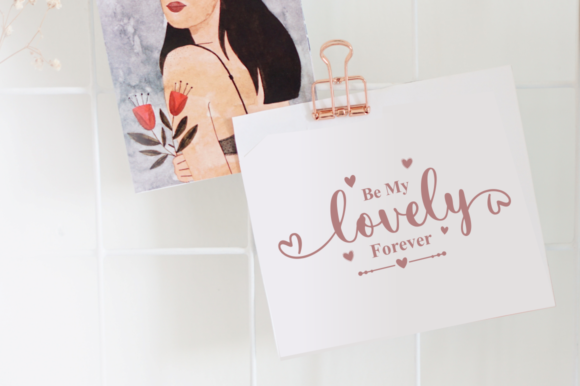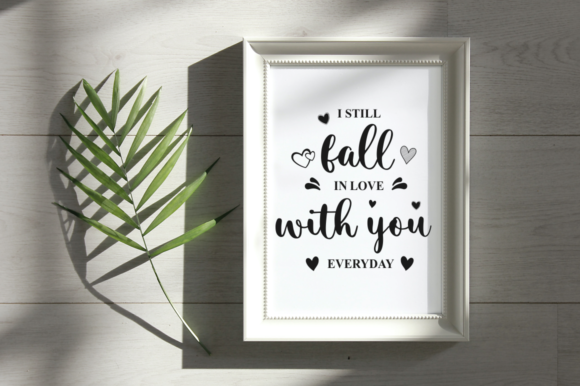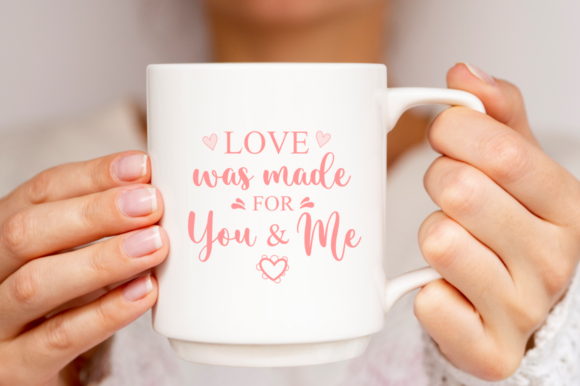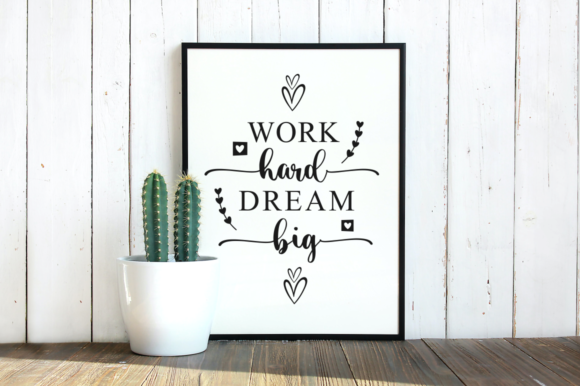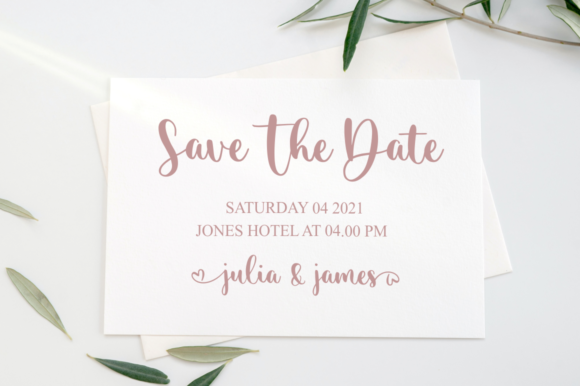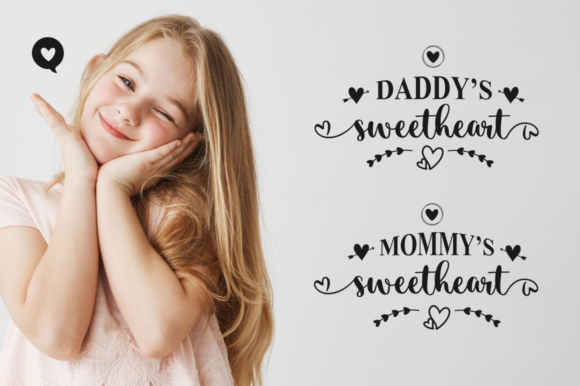
Introduction to Merciful Heart Font Font
Fonts play a crucial role in design, and the Merciful Heart Font font is a typeface that brings both character and versatility to any project. Whether you’re working on a branding project, a website, or a print design, the Merciful Heart Font font offers a unique style that can elevate your work.
Merciful Heart is a romantic and refined script font.
It is the best option for creating eye catching logos, branding and quotes Every letter has a unique and beautiful touch, which will make your design come alive.
Key Features of Merciful Heart Font Font
Why Choose Merciful Heart Font Font?
The Merciful Heart Font font is more than just a typeface – it’s a design tool that helps you communicate your message with style and clarity. Its unique character set and versatile design make it suitable for a wide range of applications, from elegant invitations to bold headlines.
With its carefully crafted letterforms and balanced proportions, the Merciful Heart Font font ensures readability and visual appeal across all mediums.
What makes Merciful Heart Font font special?
The Merciful Heart Font font stands out with its unique design, exceptional readability, and versatility across various design applications.